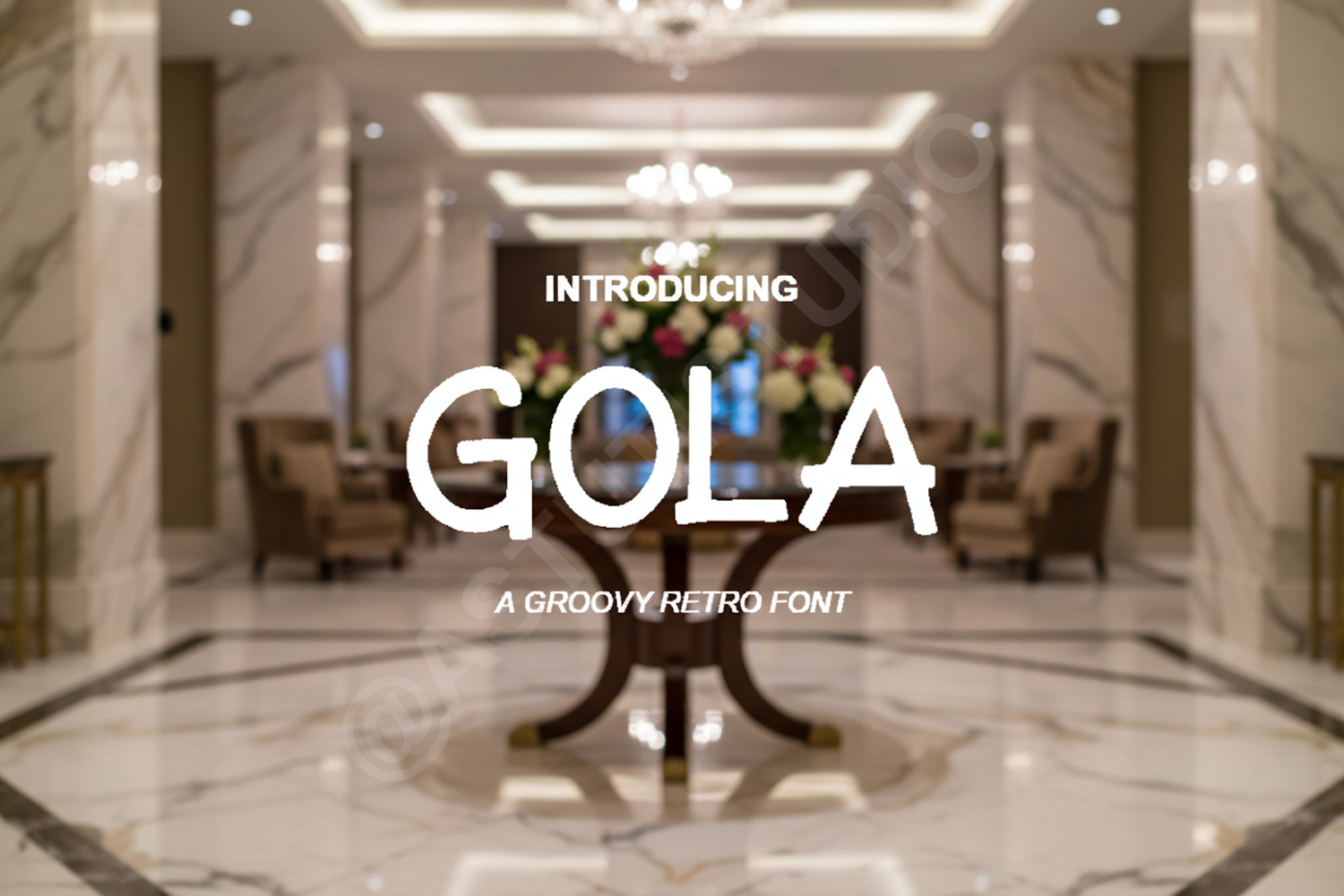
Gola - Modern Geometric Sans Serif Typeface
Gola
Experience the perfect blend of contemporary aesthetics and timeless readability with Gola. This premium geometric sans serif typeface is meticulously crafted to bring a touch of sophistication to any creative project. With its clean lines and balanced proportions, Gola stands out as a versatile choice for designers who demand excellence in their typography.
- Full set of Uppercase and Lowercase characters
- Numbers, Punctuation, and Symbols
- Extensive Multilingual Support for global reach
- Branding and Visual Identity: Create memorable logos and cohesive brand systems that command attention.
- Editorial Design: Perfect for high-impact headlines, pull quotes, and body text in magazines or books.
- Web and Digital Media: Enhance the user experience with clean, highly legible typography on websites and mobile apps.
- Marketing Collateral: Elevate your brochures, flyers, and social media graphics with a professional finish.
- Wedding and Event Stationery: Add a modern, elegant touch to contemporary invitations and event programs.